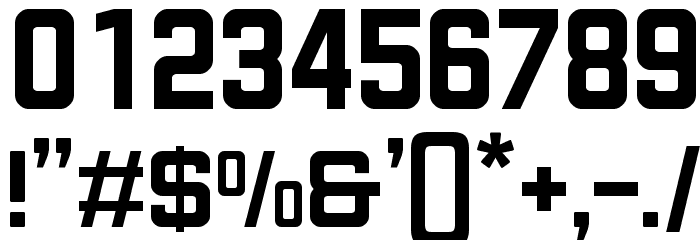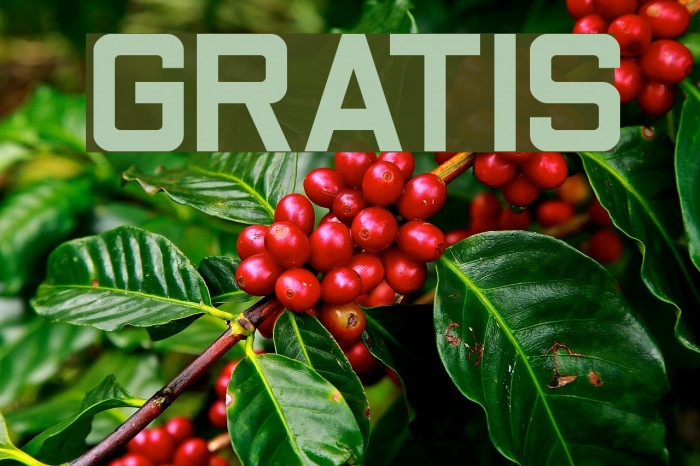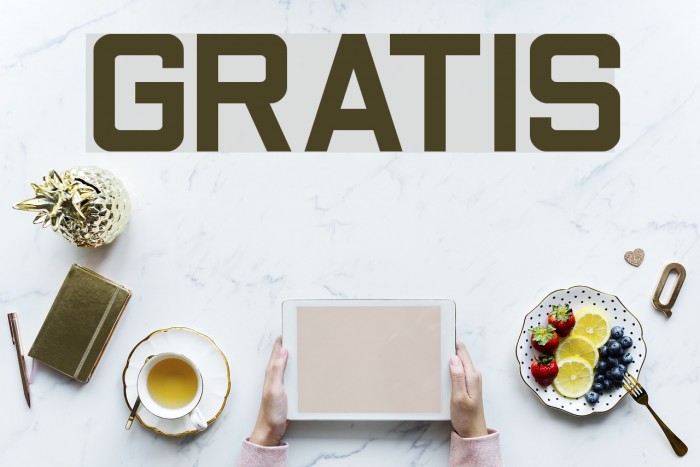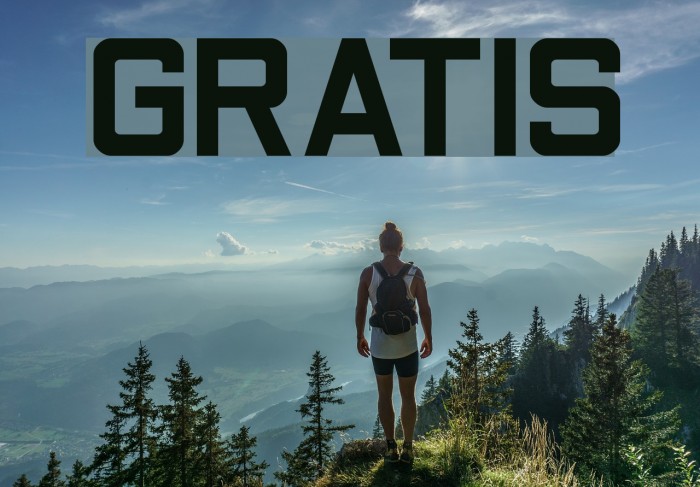
GRATIS Font
GRATIS Description
This font features a bold, geometric style with strong, clean lines and a modern aesthetic. The uppercase letters are uniform in height, creating a cohesive and structured appearance. The numerals are equally bold, maintaining the same weight and style as the letters, ensuring consistency throughout. Special characters are designed with the same attention to detail, providing a complete and versatile typeface. The font's design is both functional and visually striking, making it suitable for a variety of applications where a modern and impactful look is desired.
A bold, geometric font with a modern, structured design from Uncategorized fonts.
- Proposed Projects: Ideal for branding, headlines, posters, and digital media where a strong, modern presence is needed.